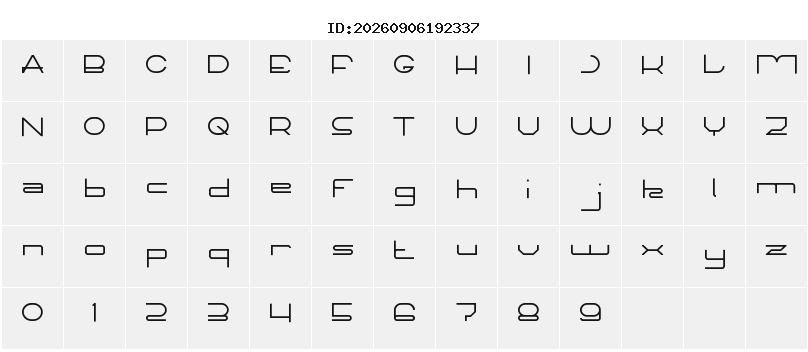
TECHNO CAPTURE Preview
• Font Name: TECHNO CAPTURE
• Full Font Name: TECHNO CAPTURE
• Version: Version 1.00 August 11, 2014, initial release
About TECHNO CAPTURE.ttf
TECHNO CAPTURE.ttf is a modern, elegant sans-serif font designed for ultimate readability and visual harmony. Perfect for branding, headlines, web design, and print materials.